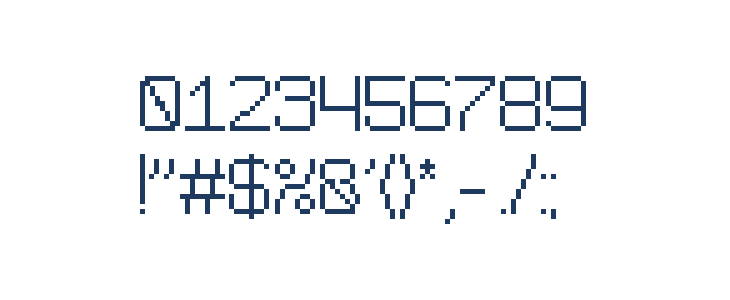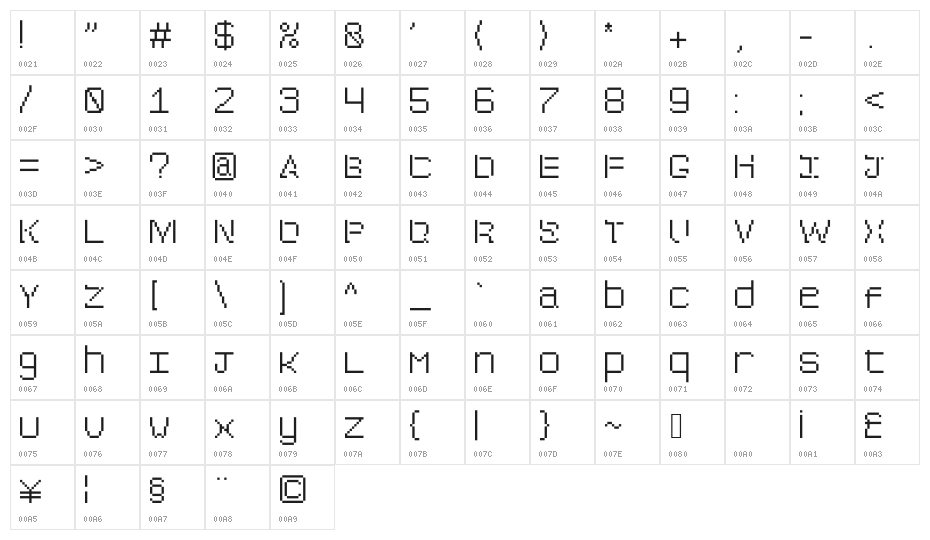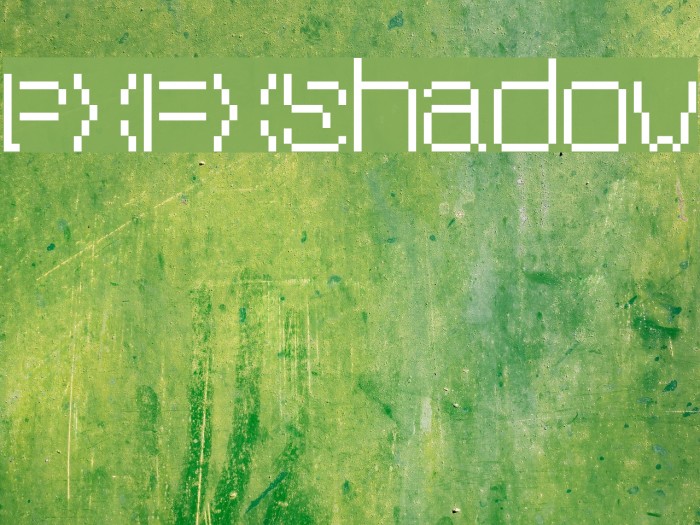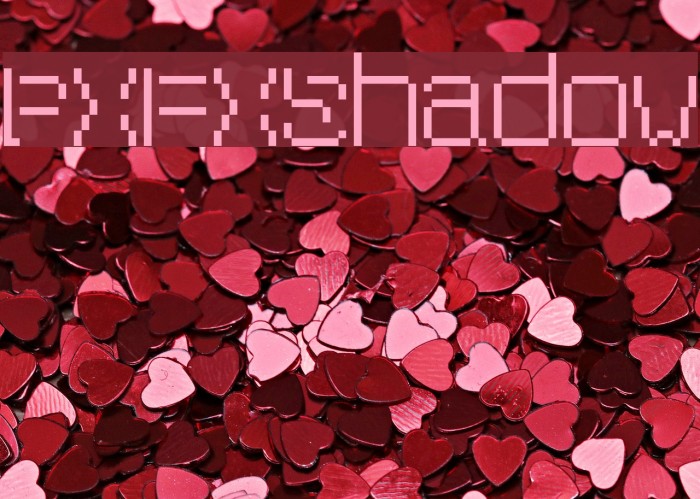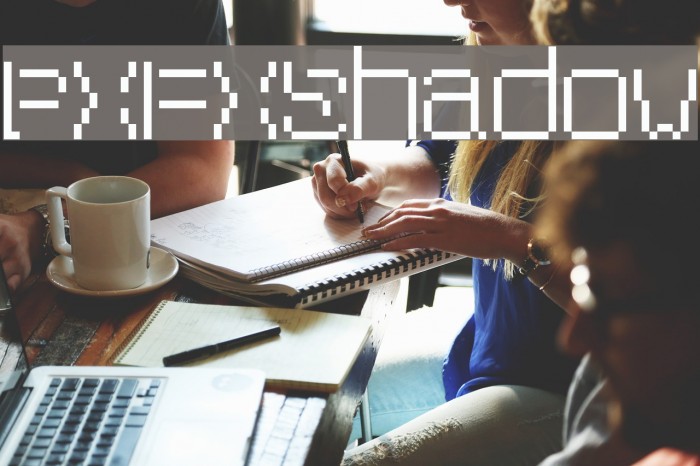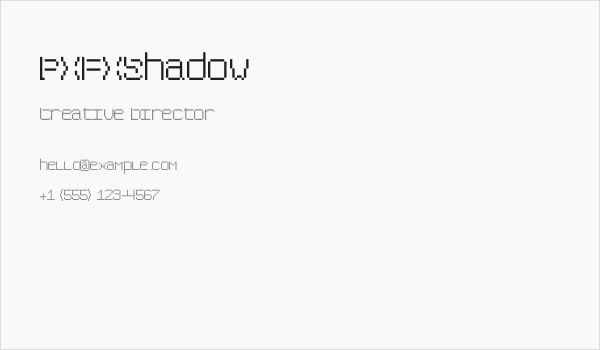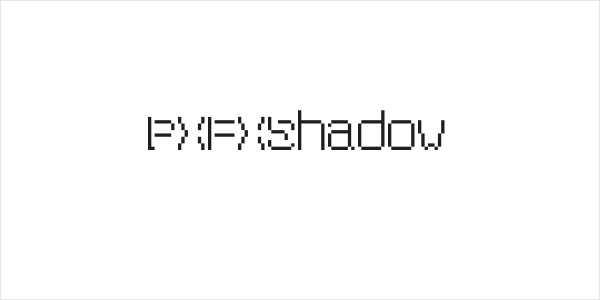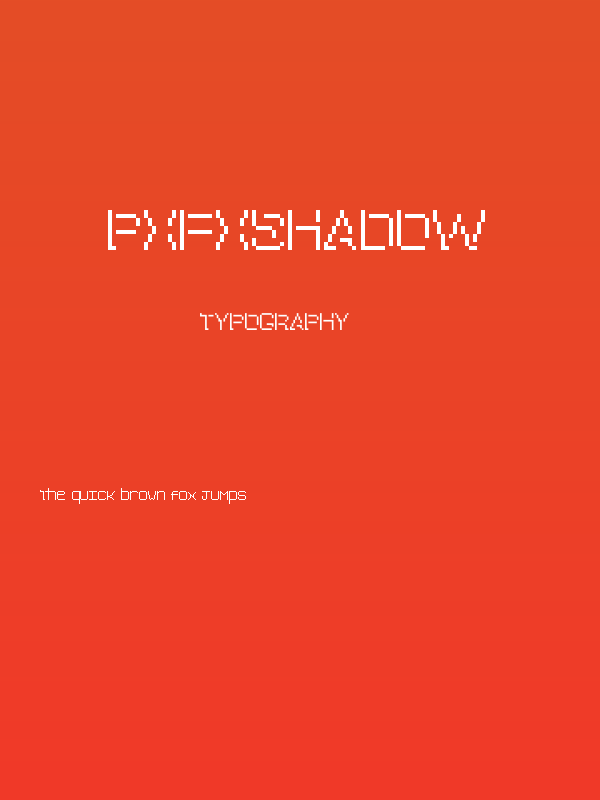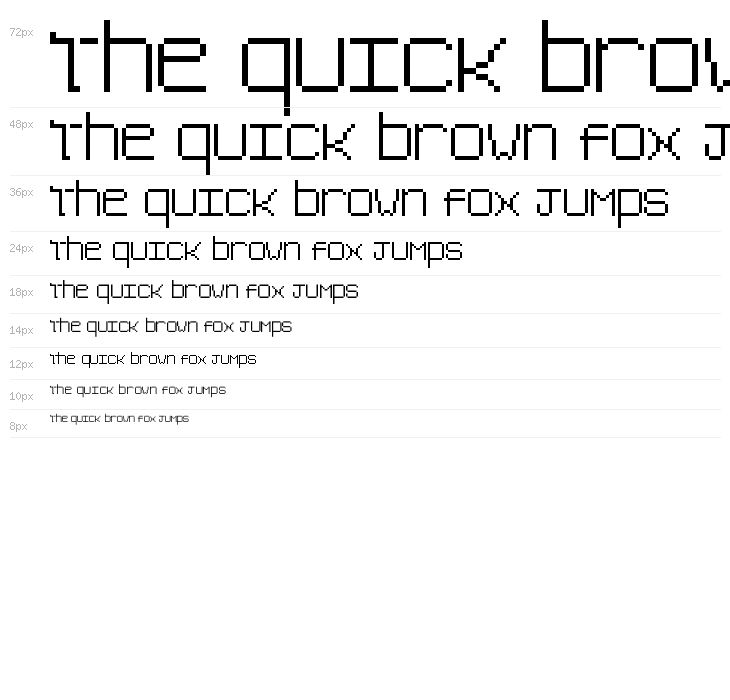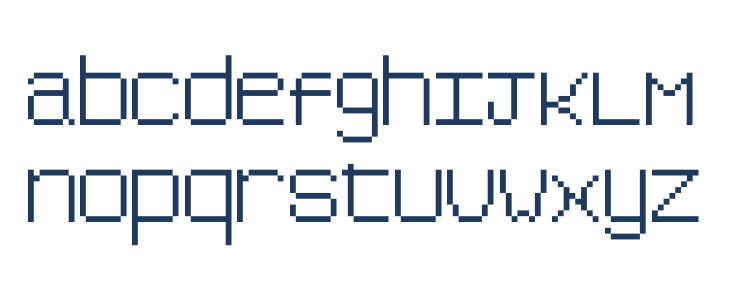
PXFXShadow Font
PXFXShadow Description
This font features a pixelated, grid-like structure that evokes a retro, digital aesthetic reminiscent of early computer graphics and video games. Each character is composed of small, square blocks, creating a distinct, angular appearance. The uniformity in stroke width and the geometric precision give it a clean and structured look. The uppercase and lowercase letters maintain a consistent style, with clear differentiation between character forms. Numbers and special characters follow the same pixelated design, ensuring a cohesive visual experience across all elements. This font's unique style makes it particularly suitable for projects that aim to capture a nostalgic or tech-inspired theme.
| Overall Style | Retro, Digital |
| Use Case | Logos, Headlines, Digital Art |
| Proposed Projects | Ideal for video game design, tech-themed posters, retro-style branding, and digital art projects. |